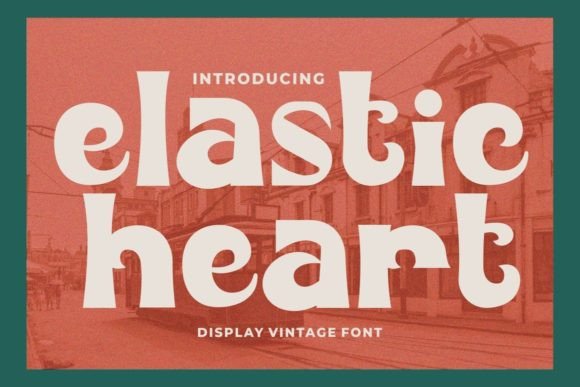
Elastic Heart Font: Vintage Style with Modern Flexibility
For those looking to add a retro flair to their design work, Elastic Heart is a standout choice. This vintage font brings a nostalgic vibe with its bold, groovy, and clean aesthetic. Whether you're designing for a 60s-themed project or simply want to give your layout a unique touch, Elastic Heart offers a range of features that make it both functional and visually appealing.
What Makes Elastic Heart Unique?
Elastic Heart is more than just a font—it's a versatile tool that blends style with practicality. Its beautiful ligatures and extensive set of alternative glyphs allow for creative expression without sacrificing readability. The font supports multiple languages, making it suitable for a wide range of projects, from local marketing campaigns to international publications.
One of the key advantages of Elastic Heart is its PUA encoding. This means users can access all the special characters and ligatures without needing additional software or complex keyboard layouts. For designers who value ease of use, this feature simplifies the process of incorporating unique elements into their work.
Why Different Audiences Care About Elastic Heart
While Elastic Heart may seem like a niche font, its appeal spans across various industries and user types. Beginners might appreciate its intuitive design and ease of access, while professionals could rely on its flexibility for high-stakes projects. Let’s explore how different groups might approach this font.
Beginners: A Gateway to Creative Expression
If you're new to typography, Elastic Heart offers a great starting point. Its clear structure and easy-to-use features help you experiment with different styles without getting overwhelmed. For students or hobbyists working on personal projects, the font provides a way to add character without requiring advanced knowledge of design principles.
For example, a blogger creating a website with a vintage theme could use Elastic Heart for headings to give their content a distinct personality. The font’s versatility allows it to work well in both large and small sizes, making it adaptable to different design needs.
Professionals: Enhancing Brand Identity
Designers and marketers often look for fonts that can elevate their brand’s visual identity. Elastic Heart’s unique blend of vintage charm and modern usability makes it ideal for creating memorable logos, posters, or social media graphics. Its multilingual support also benefits global brands that need consistent typography across different regions.
A graphic designer working on a music festival poster might choose Elastic Heart to evoke a 70s rock aesthetic. The font’s boldness and ligatures can add a dynamic feel to the design, helping it stand out in a competitive market.
Business Owners: Balancing Aesthetics and Functionality
Small business owners or entrepreneurs looking to create a strong visual presence may find Elastic Heart useful for branding materials. Its clean lines and professional appearance ensure that it works well in both digital and print formats. Whether it's a logo, packaging, or advertising campaign, the font can help convey a sense of authenticity and creativity.
For instance, a boutique coffee shop aiming to create a retro-themed menu could use Elastic Heart to give the text a nostalgic feel. The font’s readability at smaller sizes ensures that the information remains legible while maintaining an artistic edge.
Educators and Students: Teaching Typography in Practice
Teachers and students studying design or typography can benefit from using Elastic Heart in classroom settings. It serves as a practical example of how fonts can influence mood and message. By analyzing its structure and features, students can gain a deeper understanding of typographic principles.
An educator teaching a course on historical typography might use Elastic Heart to illustrate how vintage styles can be adapted for modern use. This hands-on approach helps students see the relevance of classic design elements in contemporary projects.
Key Considerations When Choosing Elastic Heart
Before deciding whether Elastic Heart is right for your project, consider your specific needs and goals. Here are a few factors to keep in mind:
- Ease of Use: PUA encoding ensures that all glyphs are accessible without extra steps, which is especially important for users who may not be familiar with advanced font tools.
- Flexibility: The font works well in a variety of contexts, from large headlines to small text, making it a reliable choice for different design scenarios.
- Creativity: With its unique ligatures and alternative glyphs, Elastic Heart encourages experimentation and personalization in design work.
- Commercial Value: For businesses, the font offers a cost-effective way to maintain a cohesive and stylish brand image without compromising on quality.
Each user will have different priorities when evaluating a font. Whether you’re focused on speed, reliability, or learning value, Elastic Heart provides a solid foundation for various applications.
Is Elastic Heart Right for You?
Ultimately, the decision to use Elastic Heart depends on your project’s requirements and your personal design preferences. If you’re drawn to vintage aesthetics and want a font that combines style with functionality, this could be the perfect fit.
Take some time to explore how the font looks in different contexts. Test it in your own designs to see if it aligns with your vision. Whether you're a beginner or an expert, Elastic Heart offers something valuable for anyone interested in typography and design.